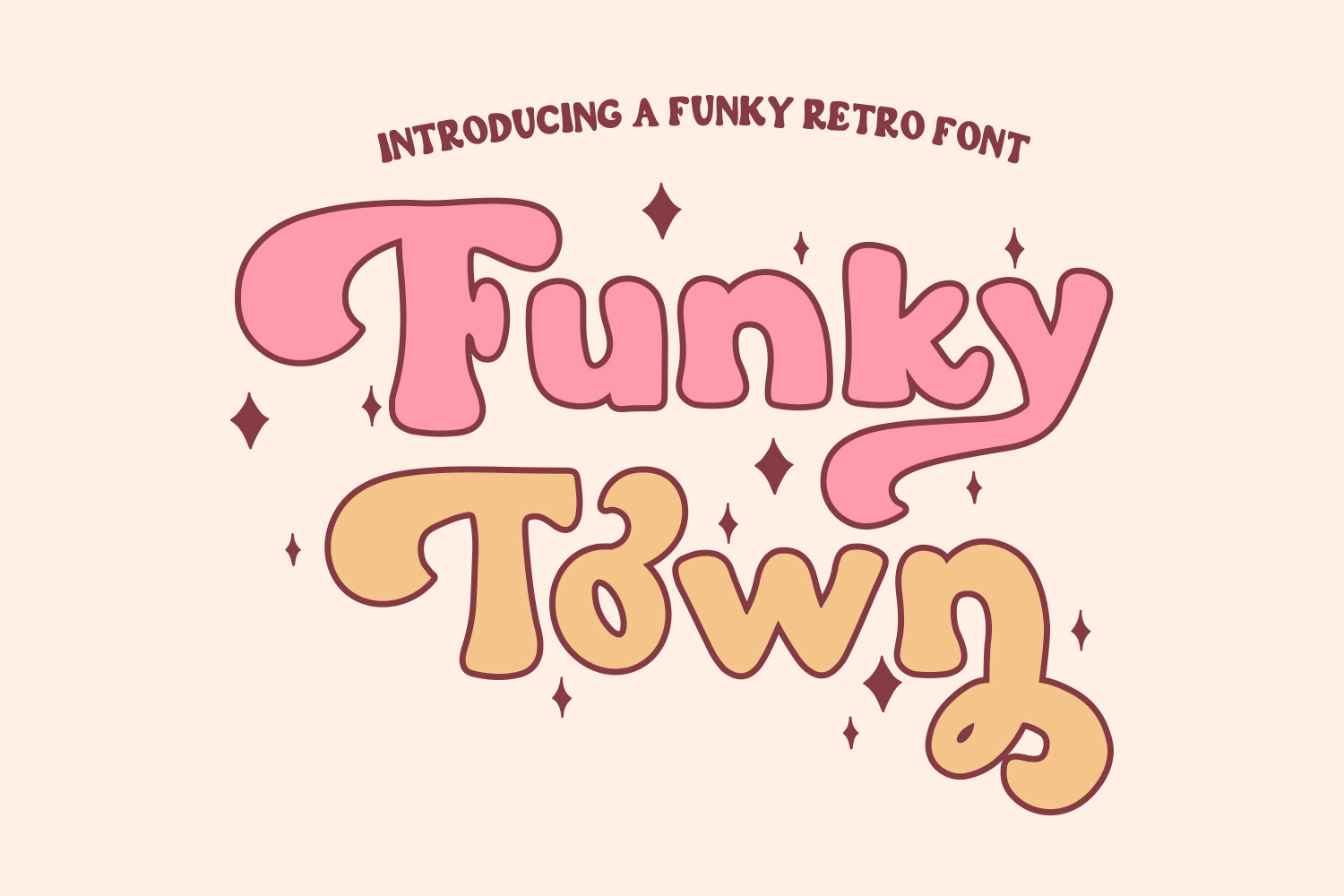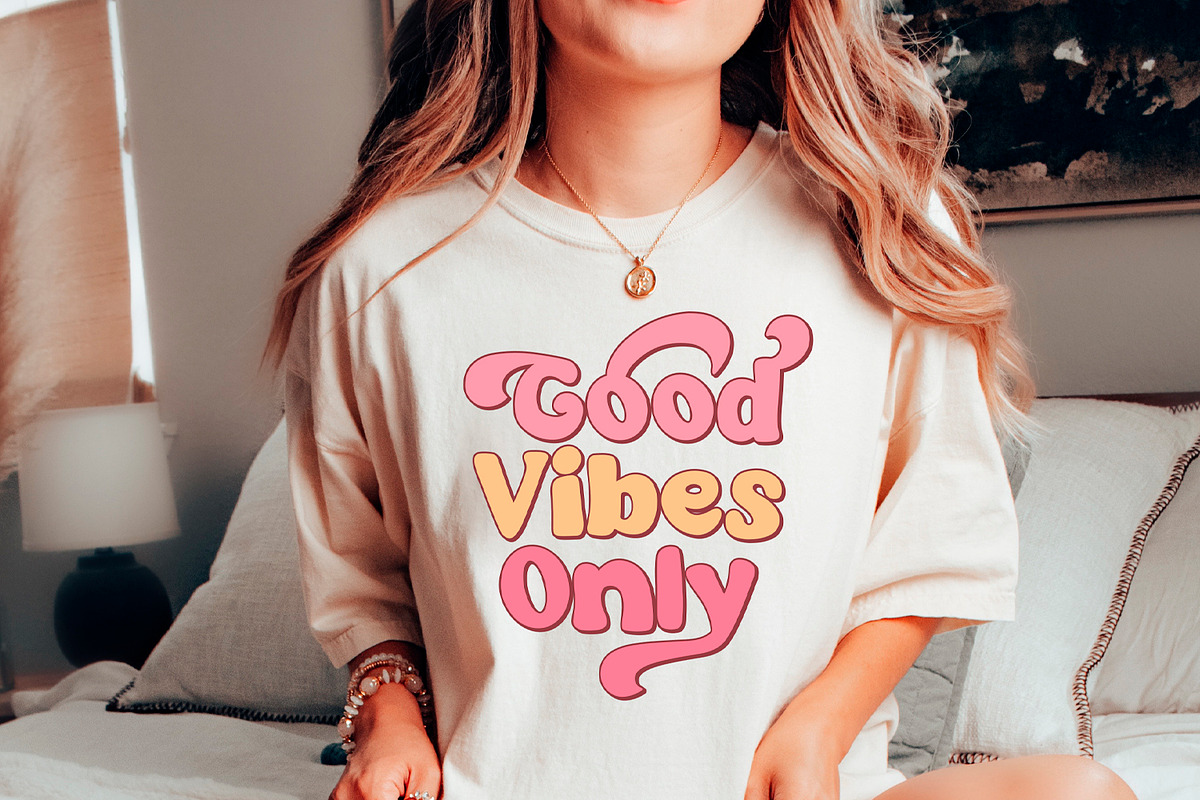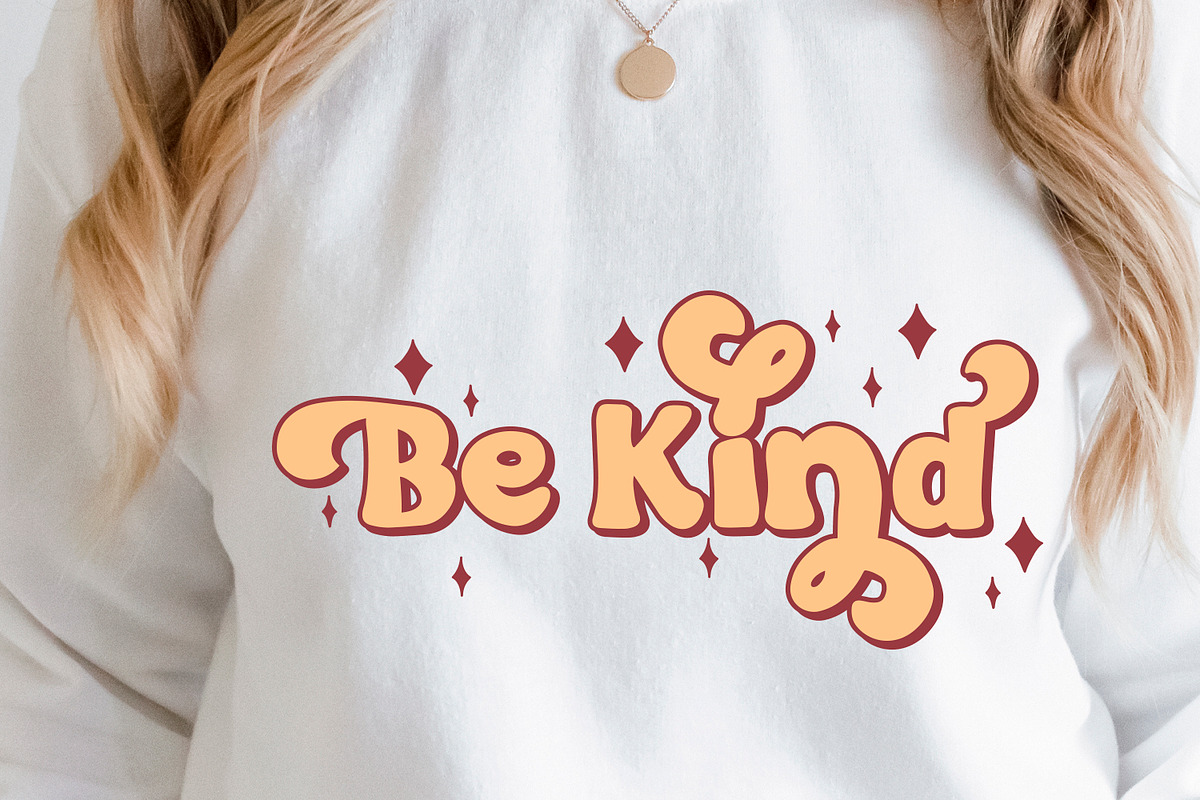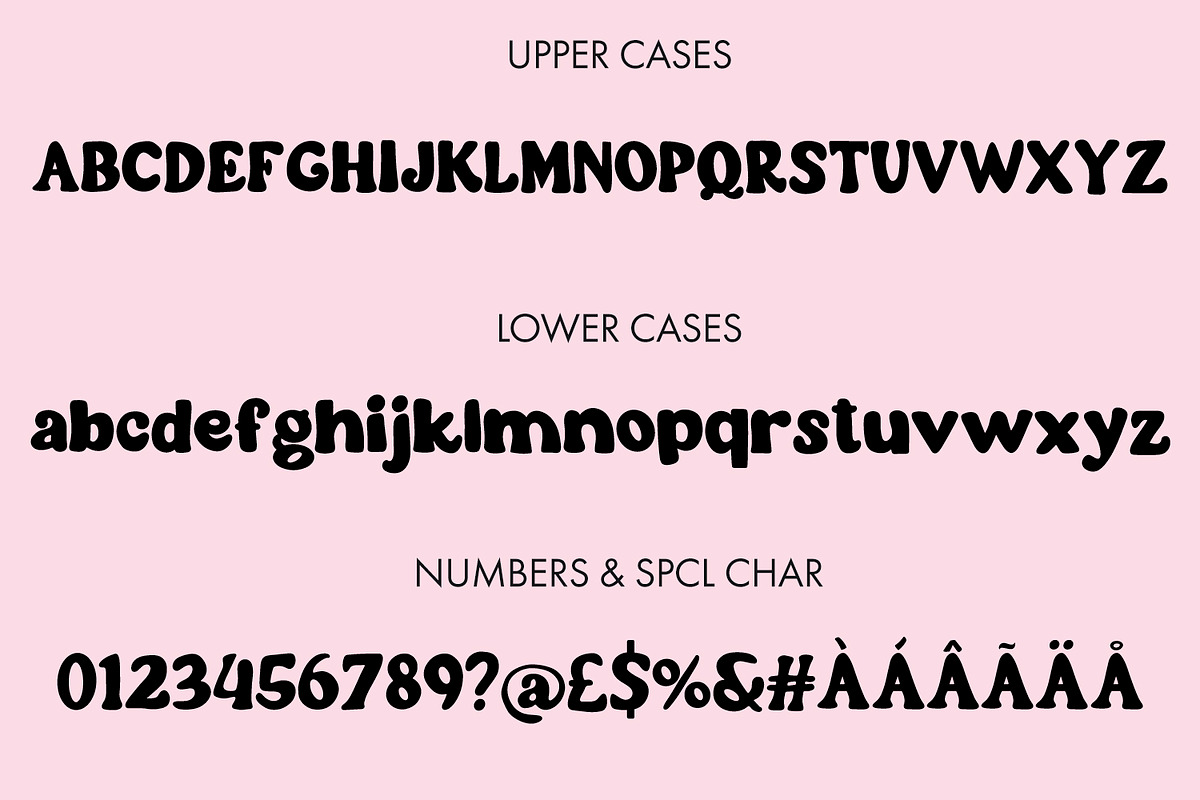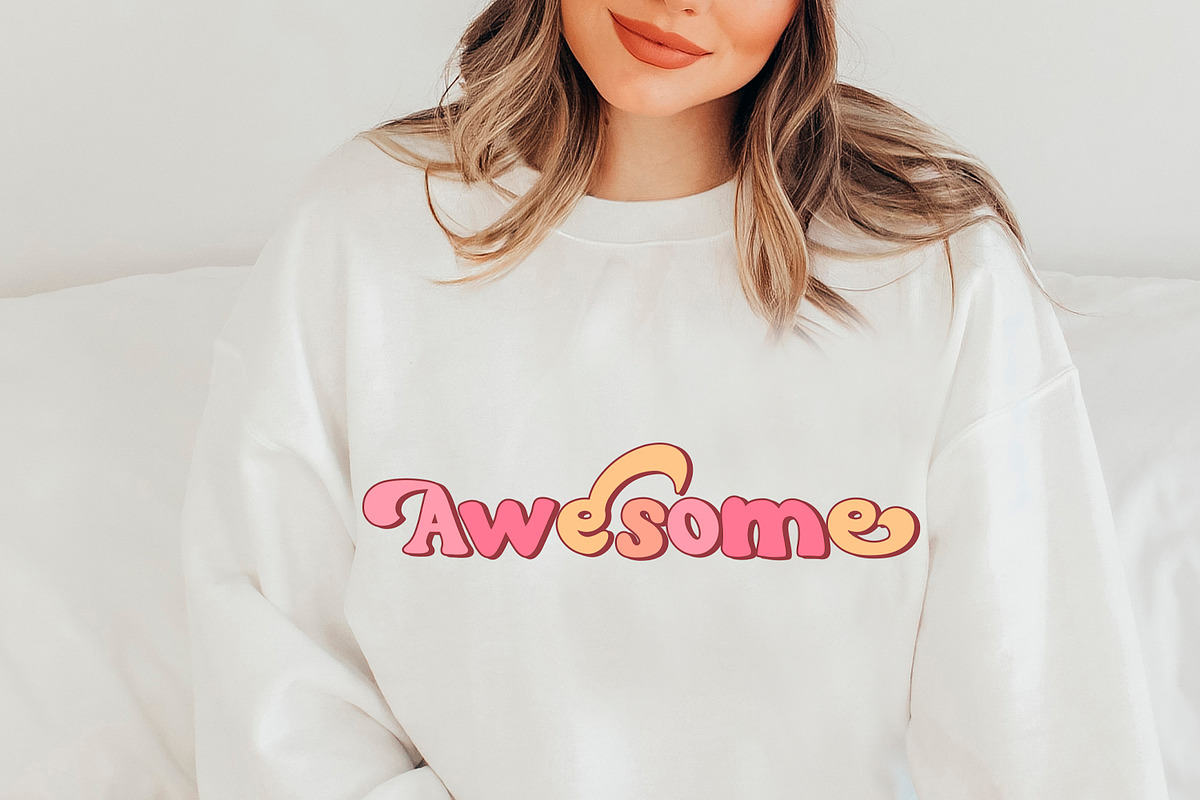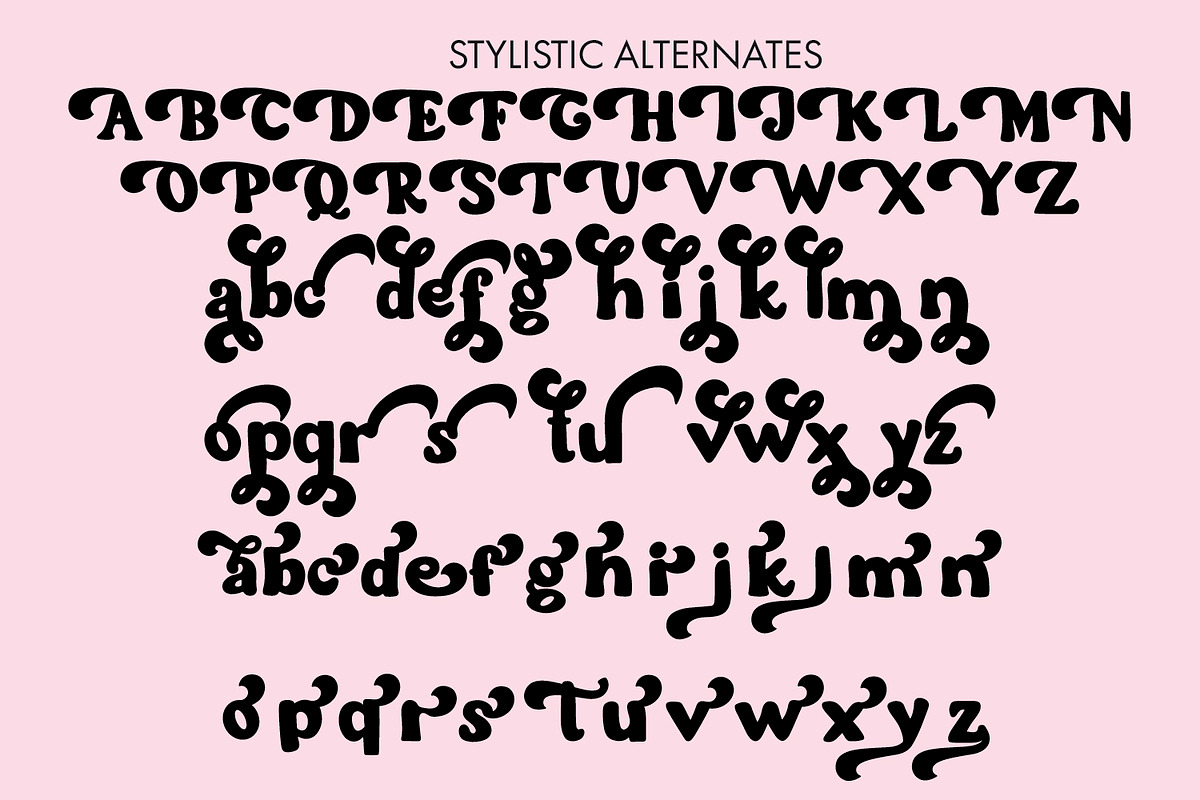
Funky Town - A Retro Font
Funky Town - A Handwritten Retro Font With Stylistic Alternates
Welcome to Funky Town! Embrace the groovy vibes and step back in time with this funky and retro handwritten font. Its stylish alternates add a unique flair to your designs, capturing the essence of a bygone era. Let your creativity run wild and infuse your projects with the spirit of funk and fun!
This font can be used for anything such as T-Shirt designs, phone cases, greeting cards, invitations, mugs and so much more! Be creative but most importantly have fun!
- Funky Town - Comes with Uppercase A-Z and lowercase a-z letters, 0-9 numbers, stylistic alternates, limited punctuation and supports Western European Languages